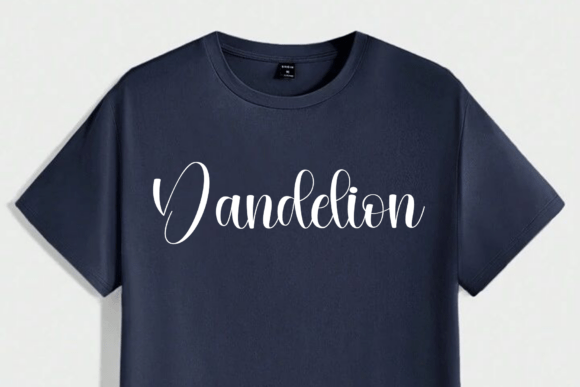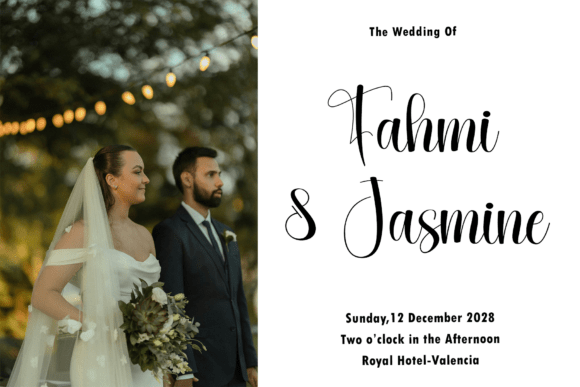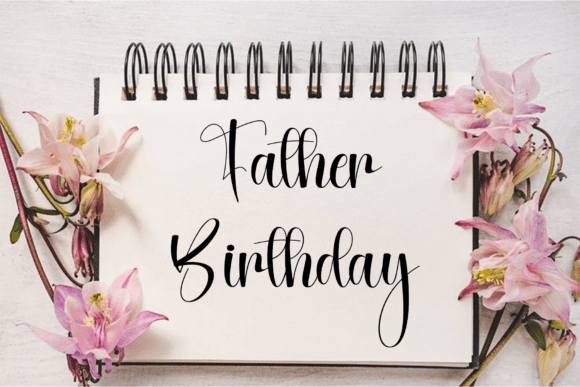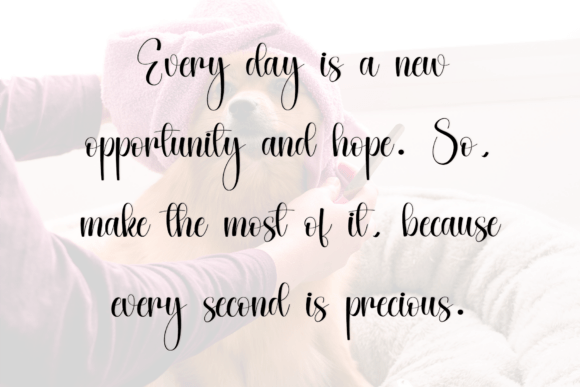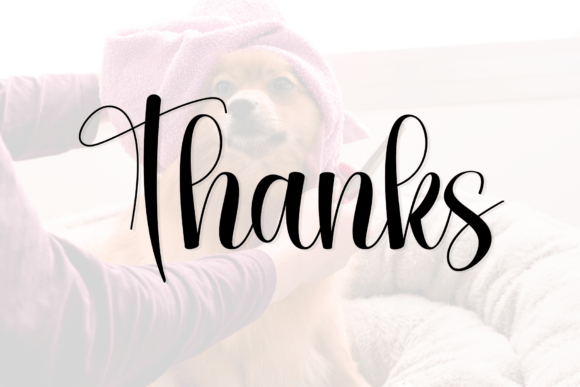
Grooming Font: Elevate Your Designs with Elegance and Sophistication
In the world of typography, a well-crafted font can make all the difference in elevating your designs to new heights. For designers and crafters seeking to add a touch of luxury and sophistication to their work, the Grooming Font is an excellent choice. This elegant and fluid handwritten script font is perfect for a variety of applications, from luxury wedding stationery to high-end editorial signatures.
The Essence of Grooming Font
Grooming Font is a modern, sophisticated typeface that exudes elegance and refinement. Its fluid, handwritten script lines evoke a sense of luxury and high-end quality, making it an ideal choice for designers seeking to create stunning visual experiences. Whether you’re working on a wedding invitation, a lifestyle photography overlay, or an editorial piece, Grooming Font is sure to impress.
Perfect for Luxury Wedding Stationery
Wedding stationery is a crucial aspect of any wedding planning process, and the right font can make a significant impact. Grooming Font is a perfect choice for luxury wedding stationery, as its elegant and sophisticated lines evoke a sense of romance and refinement. From wedding invitations to save-the-date cards, this font is sure to set the tone for a luxurious and memorable event.
Intimate Event Branding
Grooming Font is not just limited to wedding stationery; it’s also an excellent choice for intimate event branding. Whether you’re planning a baby shower, a bridal shower, or a milestone birthday celebration, this font is sure to add a touch of sophistication and elegance to your event branding. From invitation suites to event signage, Grooming Font is the perfect choice for creating a cohesive and luxurious visual identity.
High-End Editorial Signatures
For editorial designers seeking to add a touch of luxury to their work, Grooming Font is an excellent choice. This font’s elegant lines and sophisticated feel make it perfect for high-end editorial signatures, adding a level of refinement and sophistication to any article or feature.
Sophisticated Lifestyle Photography Overlays
Lifestyle photography overlays are a great way to add a touch of personality and style to your photos. Grooming Font is an excellent choice for creating sophisticated overlays that add a level of elegance and refinement to your images. Whether you’re working on a personal project or a client’s photo shoot, this font is sure to elevate your designs and add a touch of luxury.
Why Choose Grooming Font?
So, why choose Grooming Font for your next design project? Here are just a few reasons:
- Elegance and sophistication: Grooming Font exudes luxury and refinement, making it perfect for high-end designs.
- Versatility: This font is suitable for a wide range of applications, from wedding stationery to editorial design.
- Easy to read: Despite its elegant lines, Grooming Font is easy to read, making it perfect for body text and headlines.
- Unique and distinctive: Grooming Font has a unique and distinctive feel that sets it apart from other fonts.
Tips for Using Grooming Font
To get the most out of Grooming Font, here are a few tips to keep in mind:
- Use it sparingly: Grooming Font is a statement font, so use it sparingly to add emphasis and elegance to your designs.
- Pair it with a sans-serif font: Pairing Grooming Font with a sans-serif font can create a beautiful contrast and add visual interest to your designs.
- Experiment with different colors: Grooming Font looks stunning in a variety of colors, so don’t be afraid to experiment and find the perfect hue for your design.
In conclusion, Grooming Font is a stunning and sophisticated handwritten script font that’s perfect for designers and crafters seeking to add a touch of luxury and elegance to their work. With its elegant lines, versatility, and ease of use, this font is sure to elevate your designs and set you apart from the crowd.